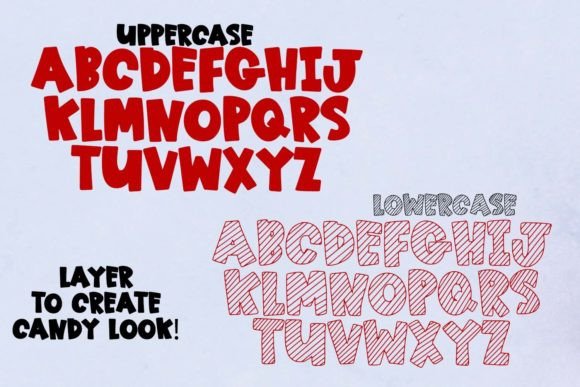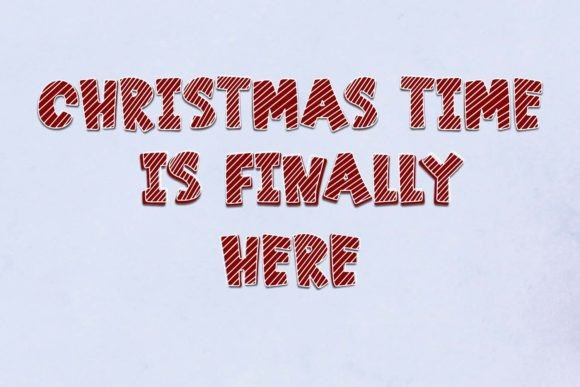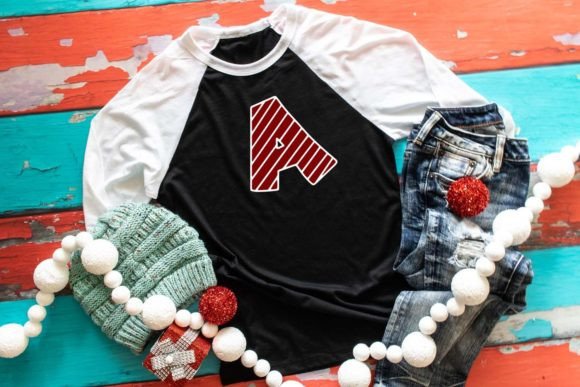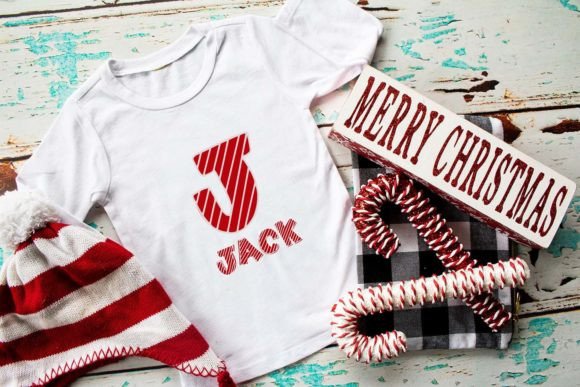
Candy Stripes Font: Add a Touch of Whimsy to Your Designs
Who hasn’t found themselves stuck in a creative rut, scrolling through Pinterest boards and Instagram feeds for inspiration? It was one of those moments for me, when I stumbled upon the Candy Stripes Font. Its playful, hand-drawn style instantly caught my eye, and I knew I had to share it with fellow designers.
The Candy Stripes Font is a charming display font perfect for adding a touch of whimsy to your designs. Whether you’re creating festive holiday decor or designing a fun t-shirt, this font is sure to bring a smile to your customers’ faces. As a designer, you know how valuable it is to have a versatile font that can be used across various projects and mediums – and that’s exactly what the Candy Stripes Font delivers.
- Unique Characteristics: The Candy Stripes font features a distinctive, hand-drawn design with bold, colorful stripes, making it perfect for creating playful and eye-catching graphics.
Candy Stripes Font Review
I’ve had the chance to work with the Candy Stripes Font, and I must say it’s a fun, playful addition to any design project. ✨ Here are some things that work well:
- It’s great for creating a whimsical, childlike atmosphere, making it perfect for kids’ products, party invitations, or even a bakery website.
- The font is highly customizable, with various color and pattern options to match your design style.
- The font may be too flashy or overwhelming for more serious or professional designs.
- Some users may find the pattern distracting or hard to read, especially in large blocks of text.
- The font’s high customizability can also lead to design inconsistencies if not used thoughtfully.
Overall, I think the Candy Stripes Font is a great choice for designers looking to add some personality to their projects. With its playful vibe and customization options, it’s a great addition to any design toolbox.
Getting the Most Out of the Candy Stripes Font
To get the most out of the Candy Stripes font, try the following tips:
- Use it for playful, whimsical designs.
- Pair it with bold, bright colors for maximum impact.
- Experiment with different font sizes and combinations for unique effects.
The Candy Stripes font is commonly used for:
- Party invitations and decorations.
- Children’s book covers and illustrations.
- Whimsical greeting cards and gift tags.